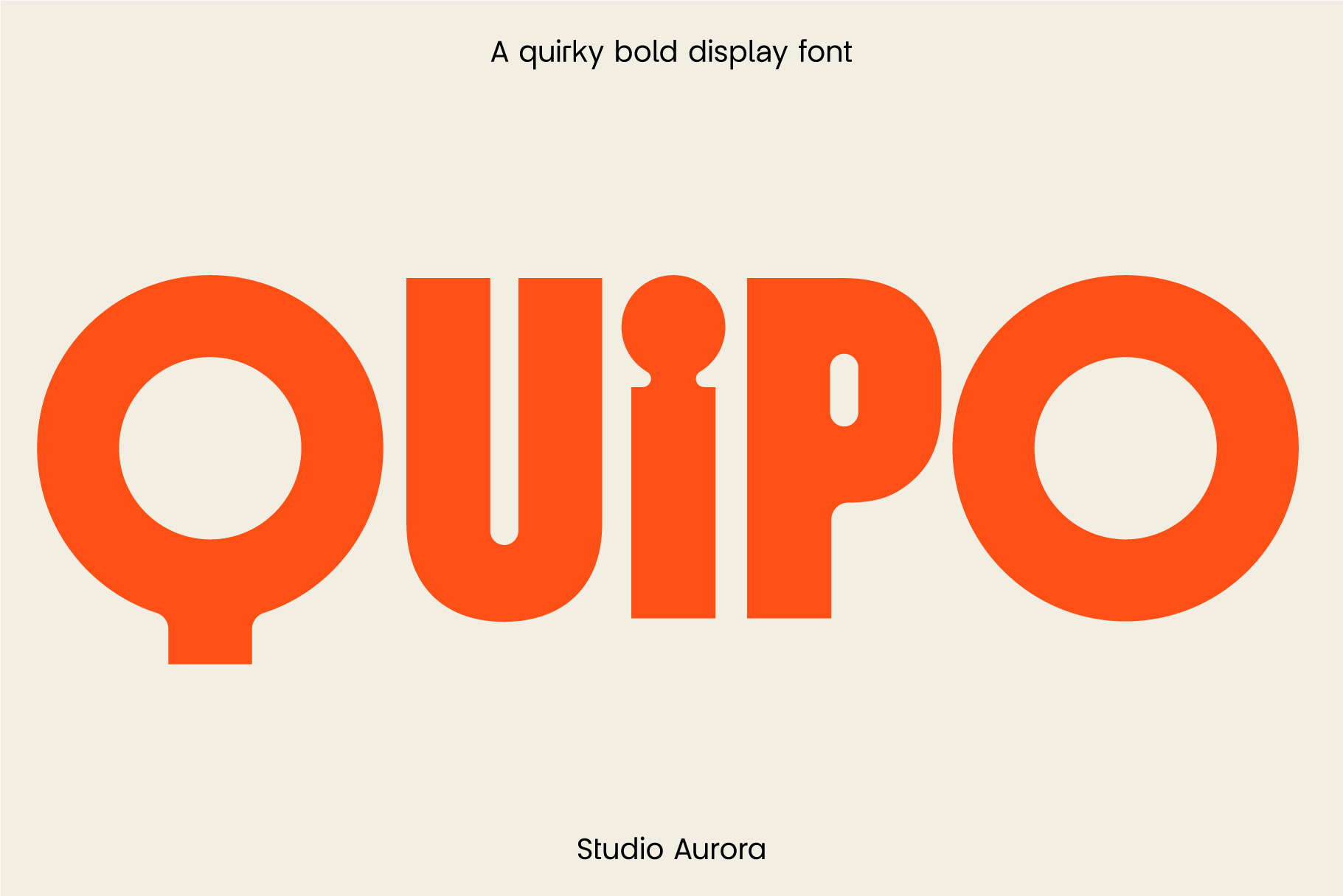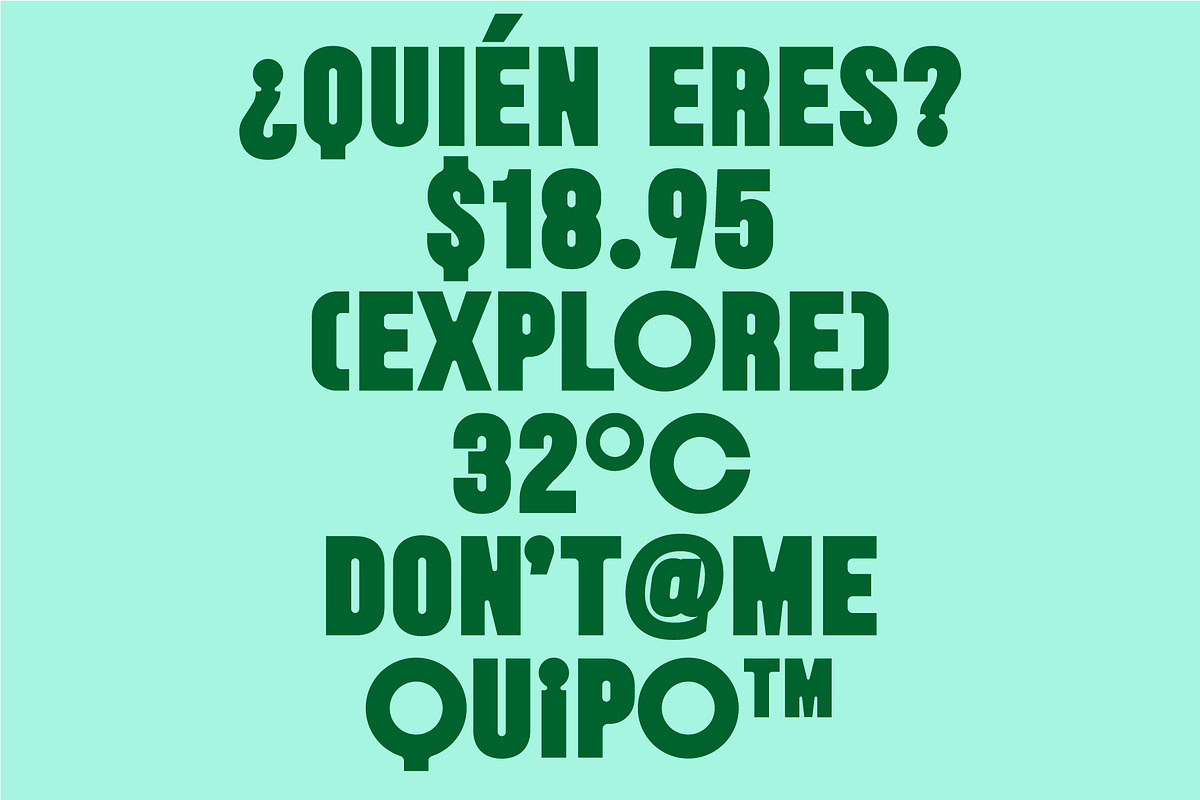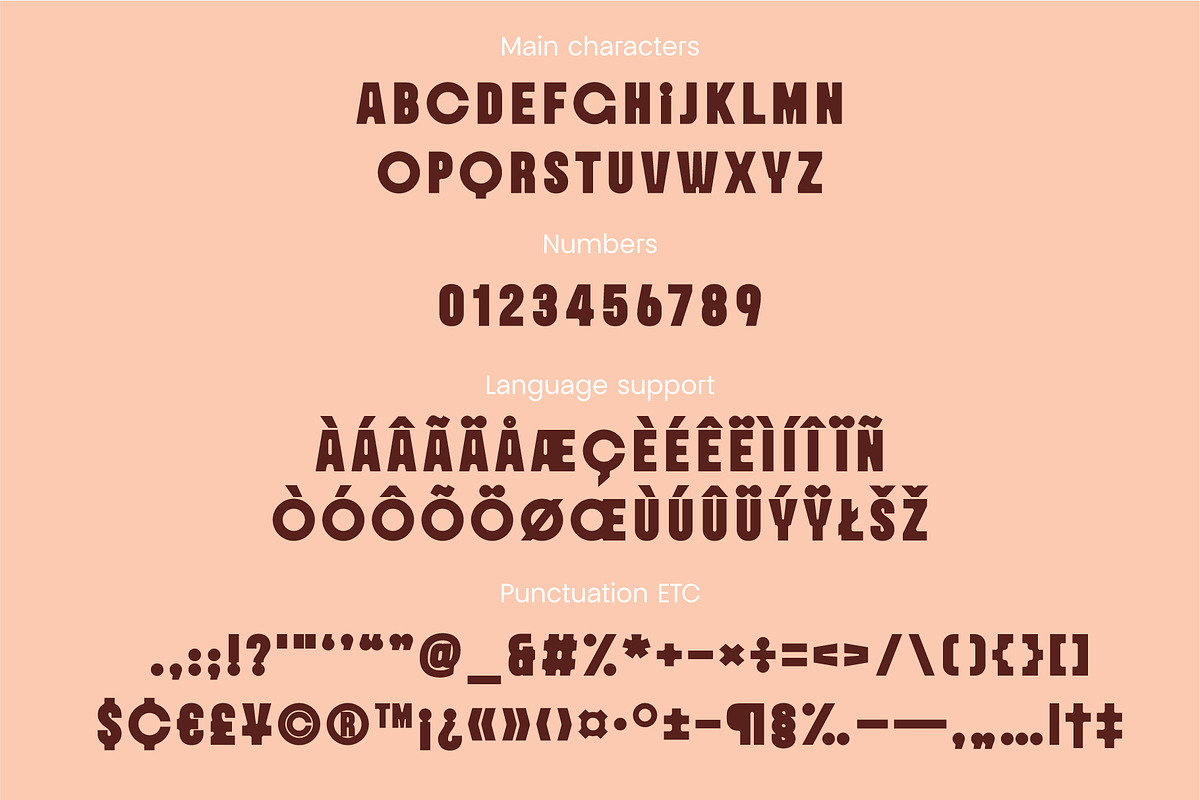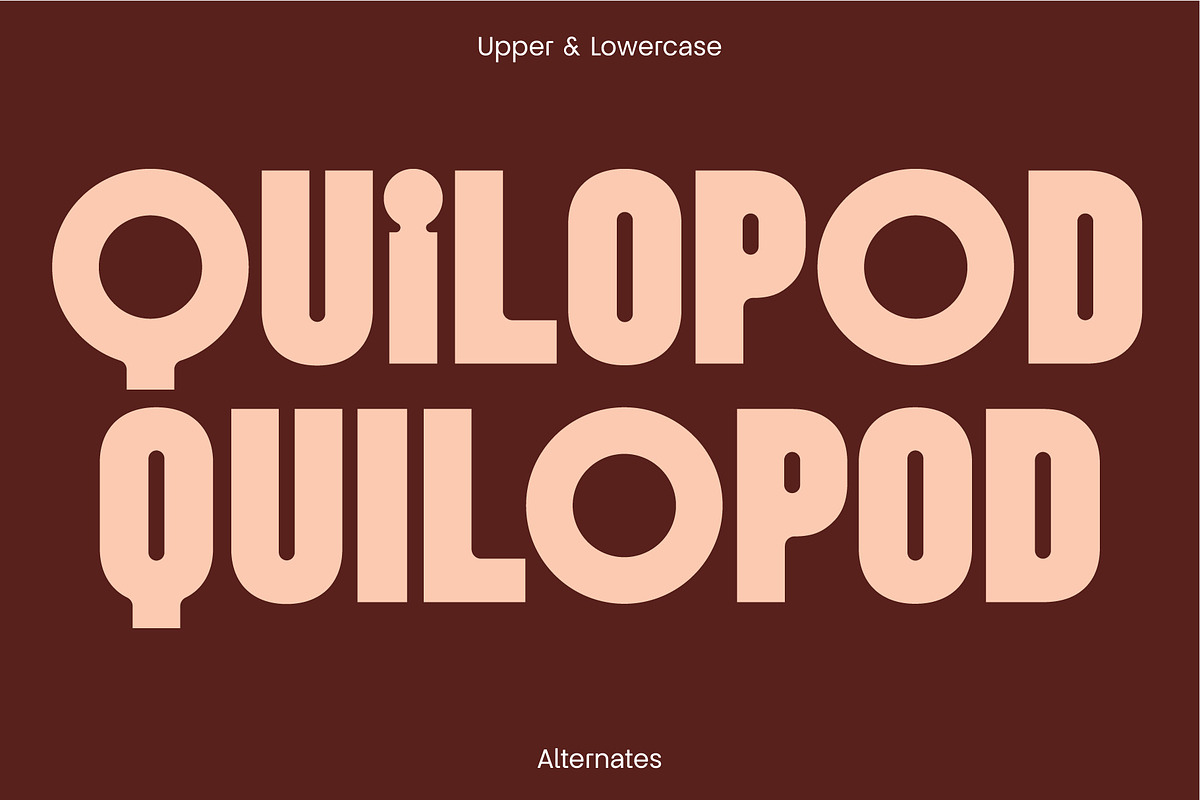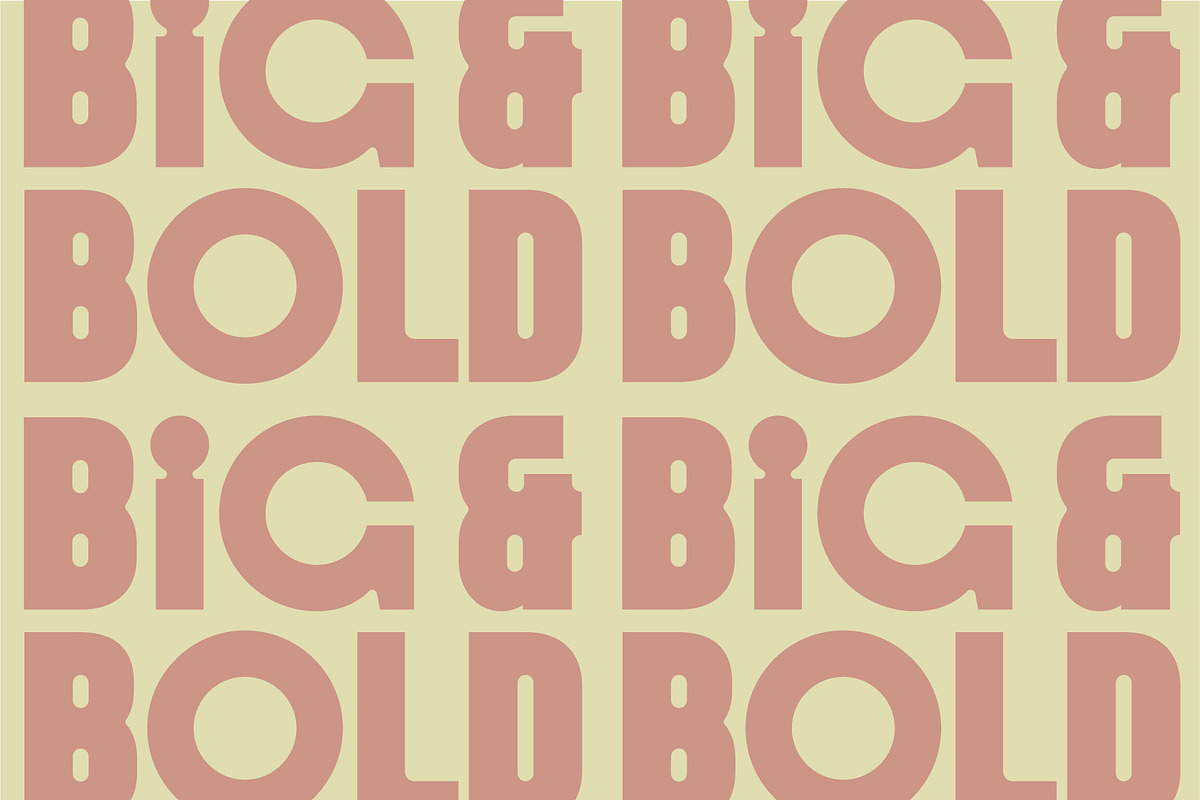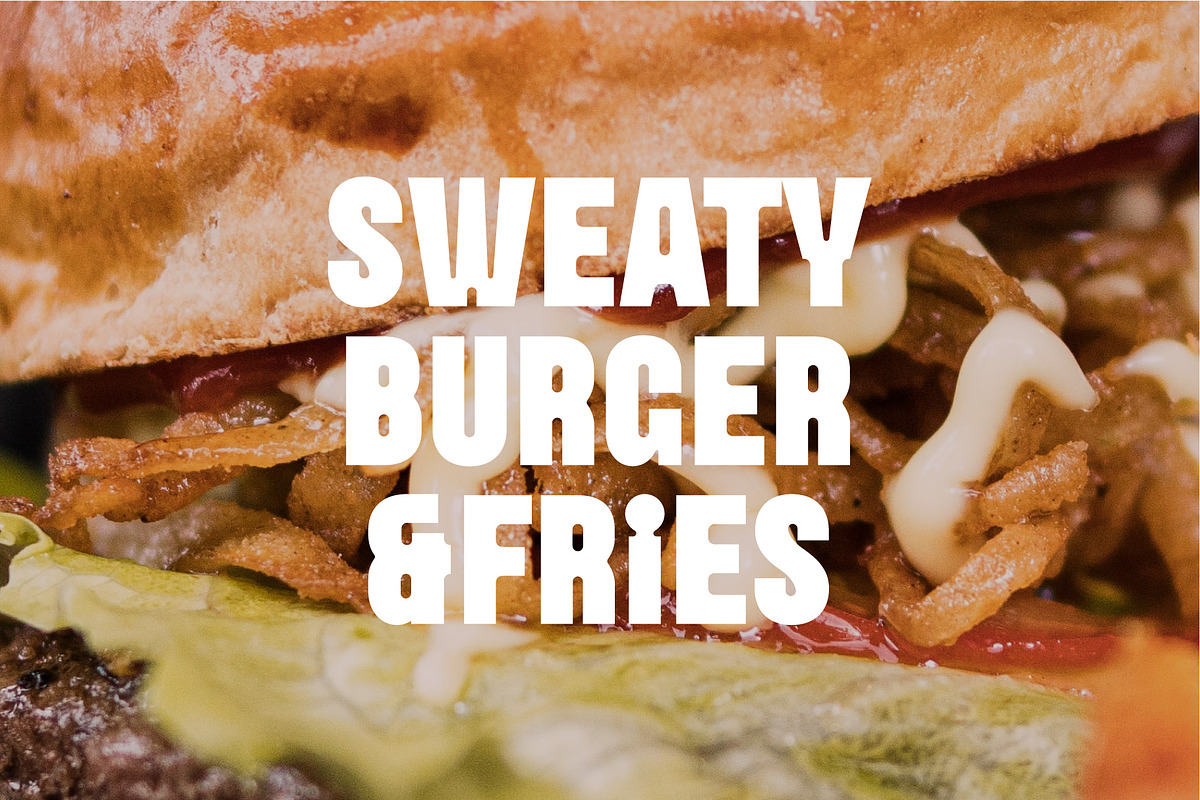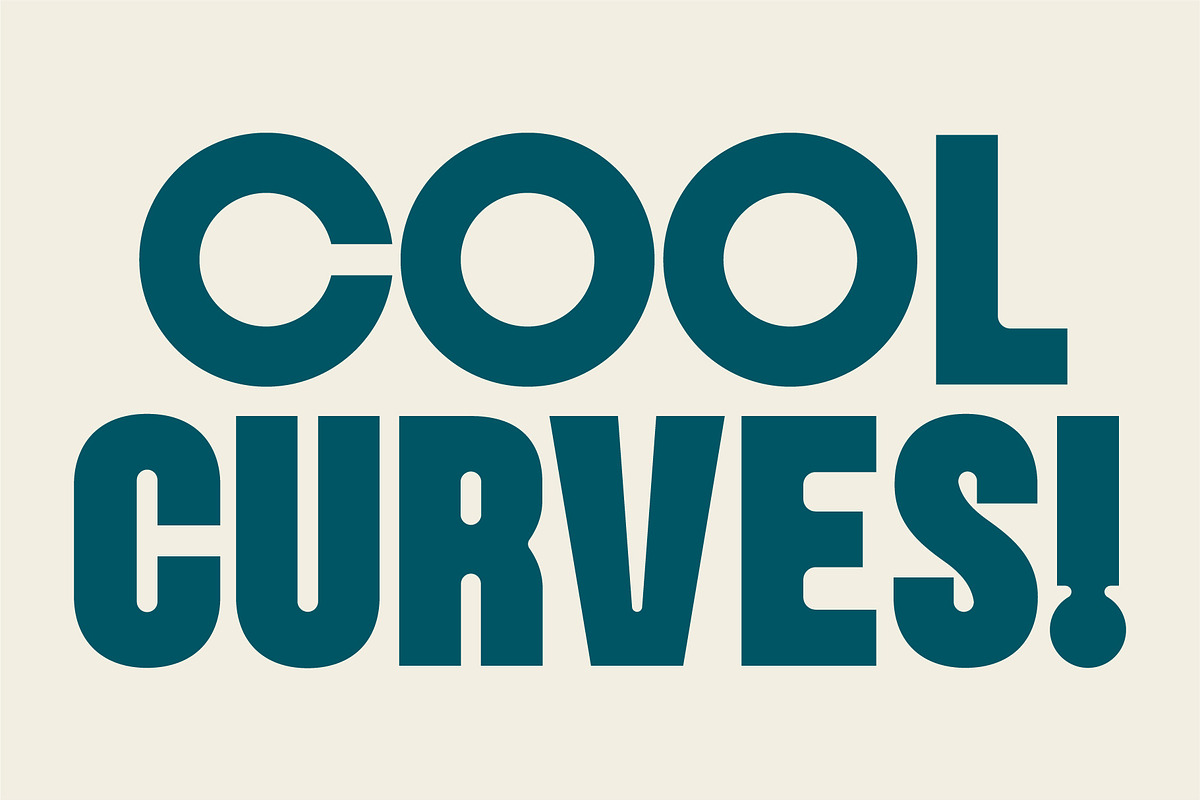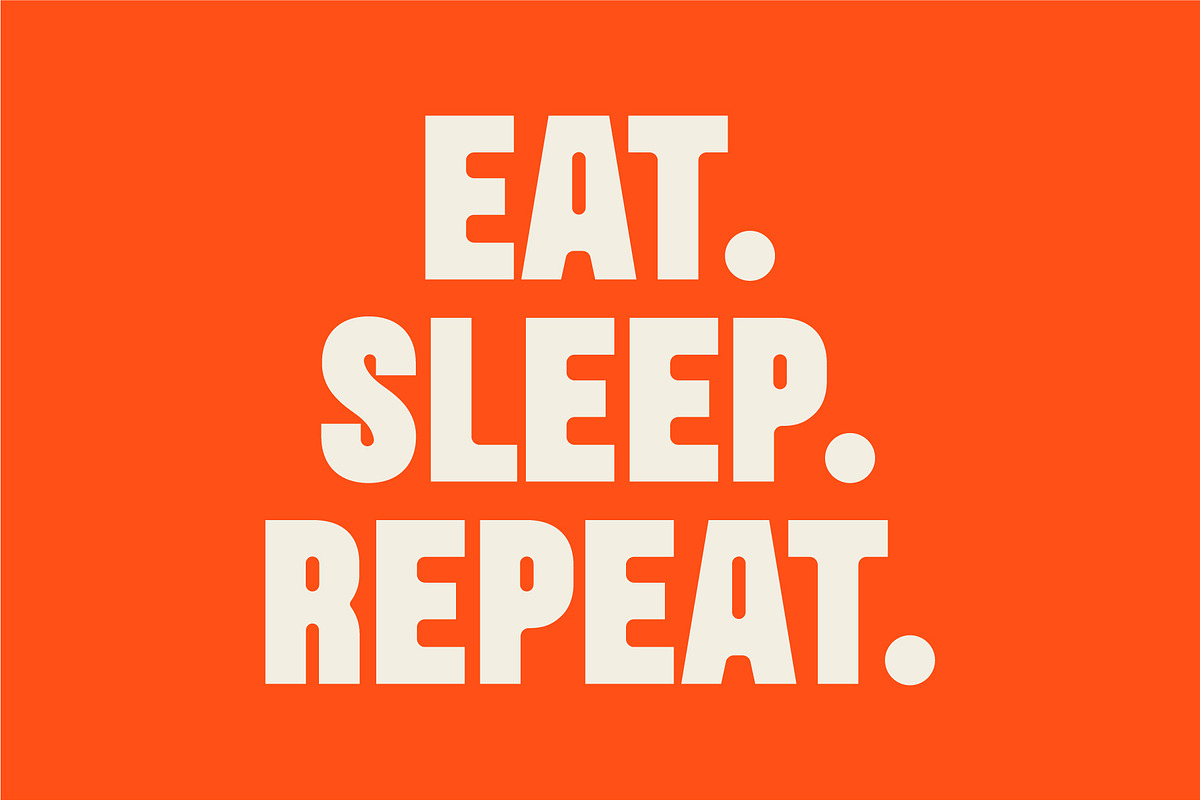
Quipo - Quirky Bold Display Font
Quipo is quirky curved and bold display font
Perfect for designs that require impact with a contemporary edge. Use it for a logo, a magazine masthead or as part of an email marketing campaign - it's up to you!
Uppercase glyphs
Alternate lowercase glyphs